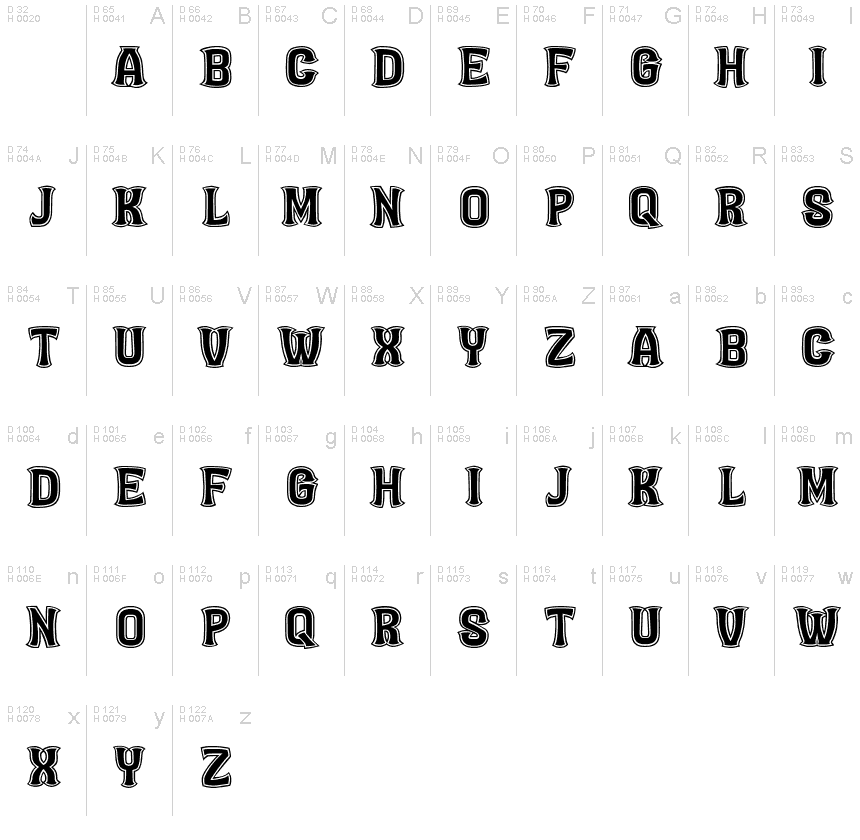
Capo Regular
Capo, designed by Vladimir Nikolic, is a bold display font that demands attention. Its sharp edges and strong lines make it perfect for projects in need of a powerful and commanding presence. With its modern style, Capo is ideal for branding, advertising, and editorial design - think fashion magazines or luxury brands. Its bold weight makes it perfect for headlines and titles that need to stand out from the rest of the text. Whether you're creating a logo or designing a website, Capo is sure to make an impact with its confident and striking appearance.